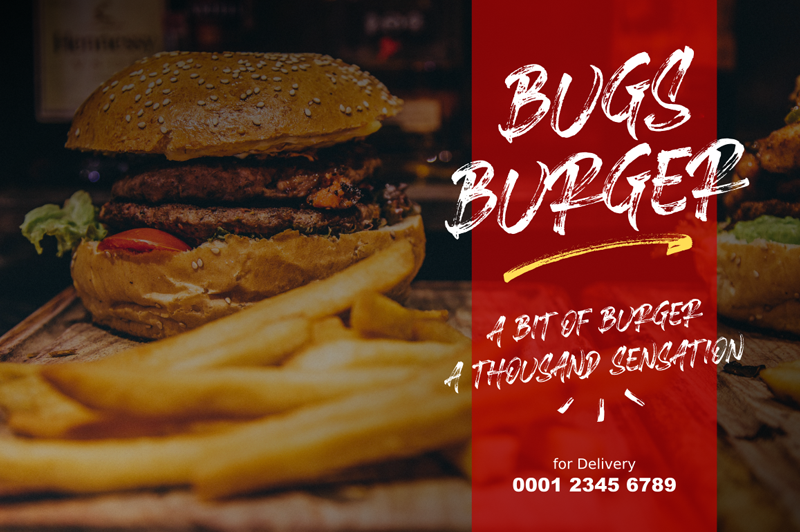
Preview and download Brushlie Font. Created by Abo Daniel in Script Brush styles with Free for personal use license.
Thank You for Downloading The Legend of BRUSHLIE - urban typeface - This font is made with real brush. Brushlie is ideal for logos, apparel, quotes, product packaging, or anything which needs a typographic with natural brush taste. Even though Brushlie is an uppercase font, the lowercase characters will give alternate for uppercase characters. This is for Personal Use Only, If you want use to Commercial, please purchase it on the following link https://fontbundles.net/abodaniel92/288066-brushlie-urban-typeface If there is a problem, question, or anything about my fonts, please sent an email to panggahlaksono@gmail.com Thanks, Abo Daniel |